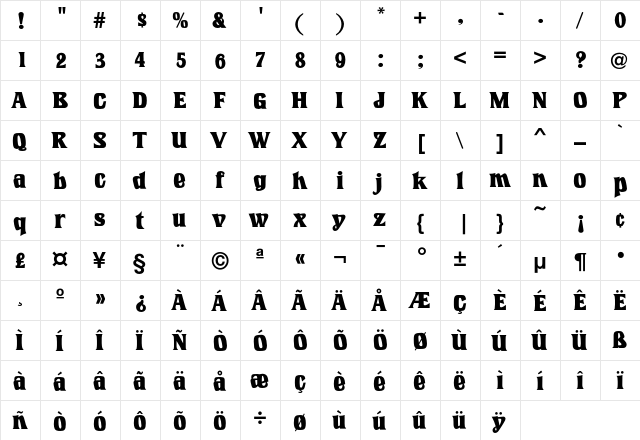
Introspect Bold
Design Context for Introspect Typeface
Introspect offers clean, dependable letterforms without strong stylistic allegiance, making it a practical choice for designers who need flexibility. Its bold stroke weight gives it real presence on the page.
Pro Tip: Use Introspect in both headline and body roles to test its range before committing to a single application.